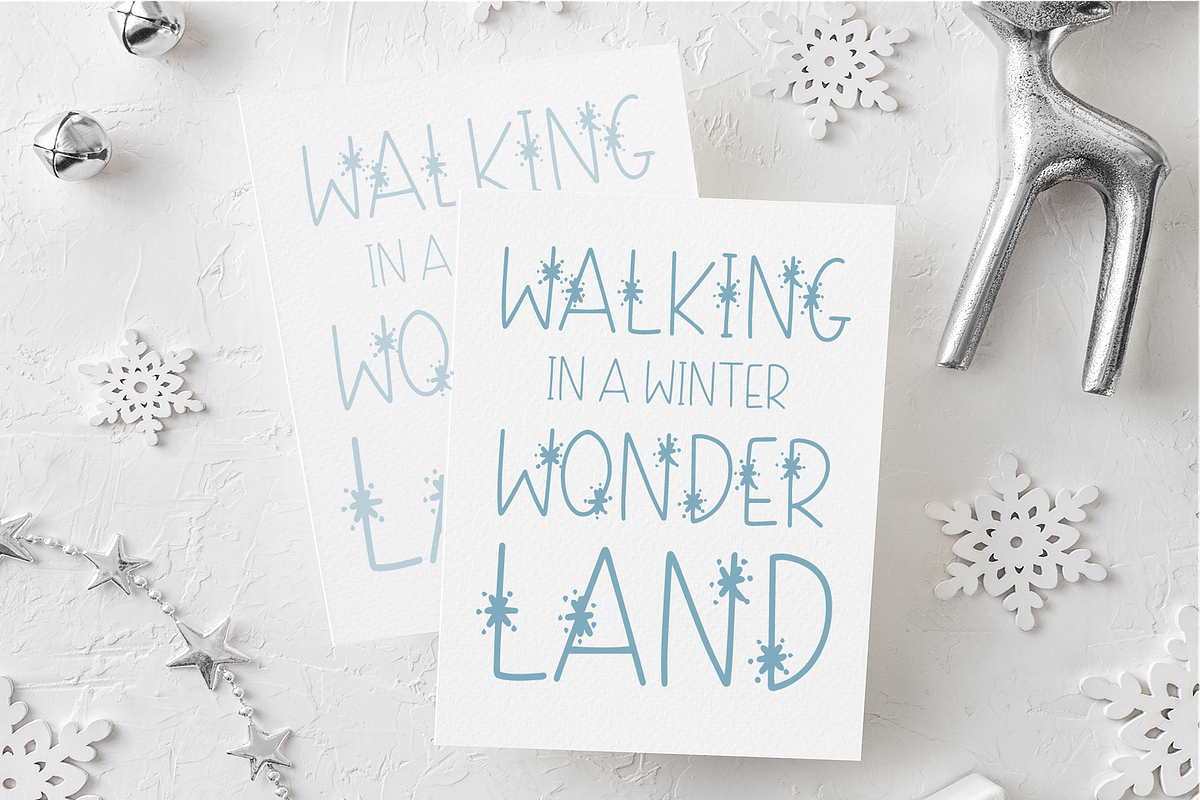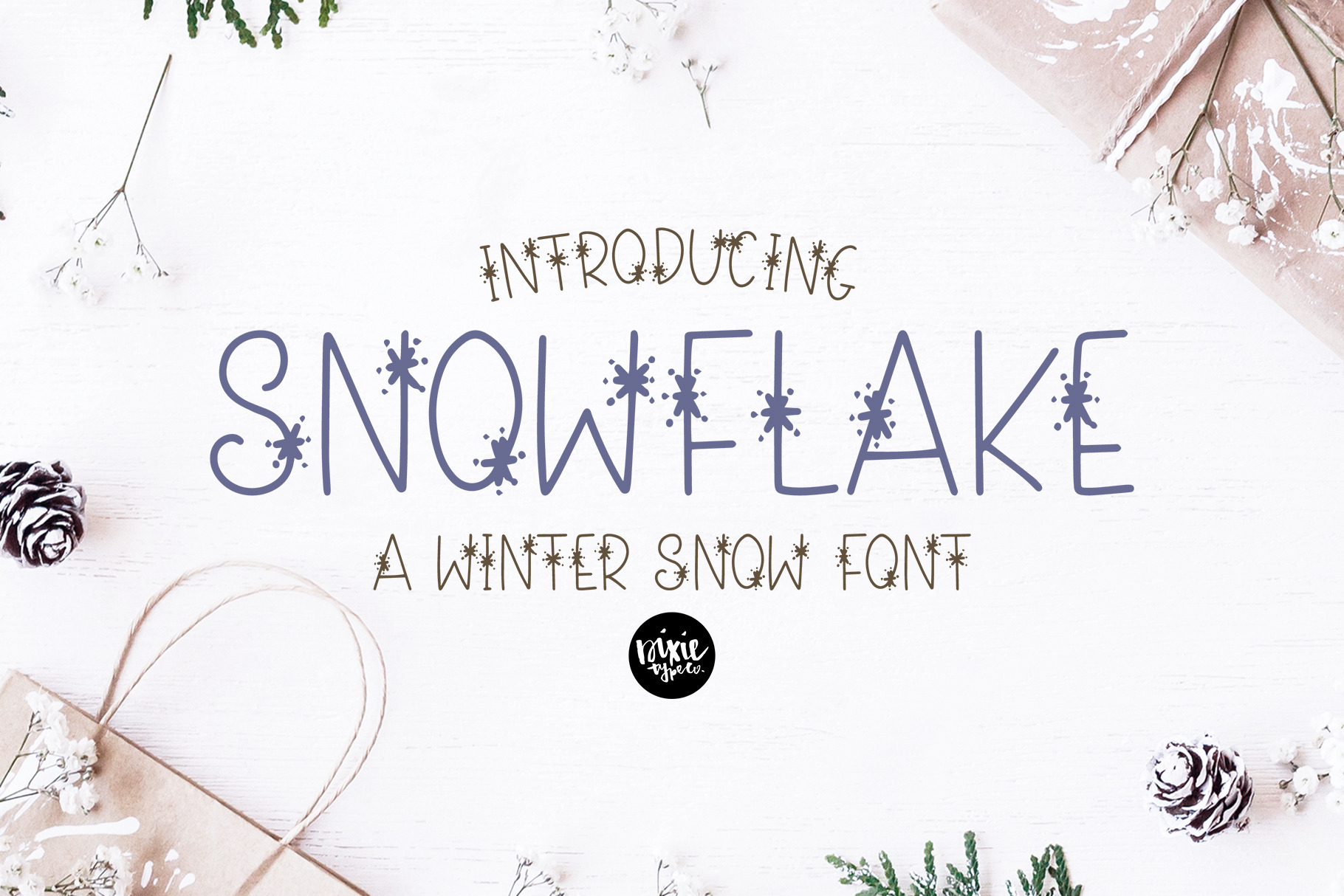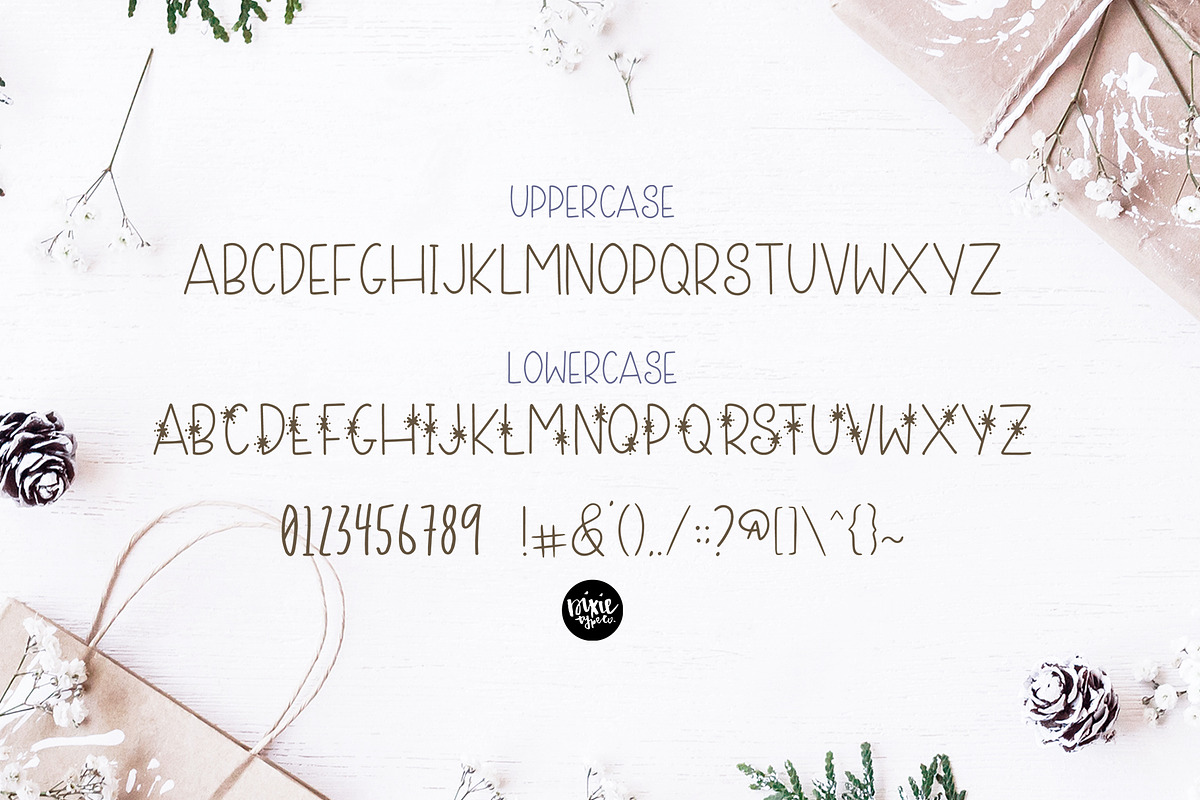
SNOWFLAKE a Winter Snow Font
"Snowflake" a winter snow font.
Snowflake is great for your holiday projects. Use it for Christmas cards, winter crafts for decor and more! This font includes numbers and basic punctuation.
UPPERCASE characters in this font are (matching) basic sans letters, and lowercase characters provide the snowflake letters.